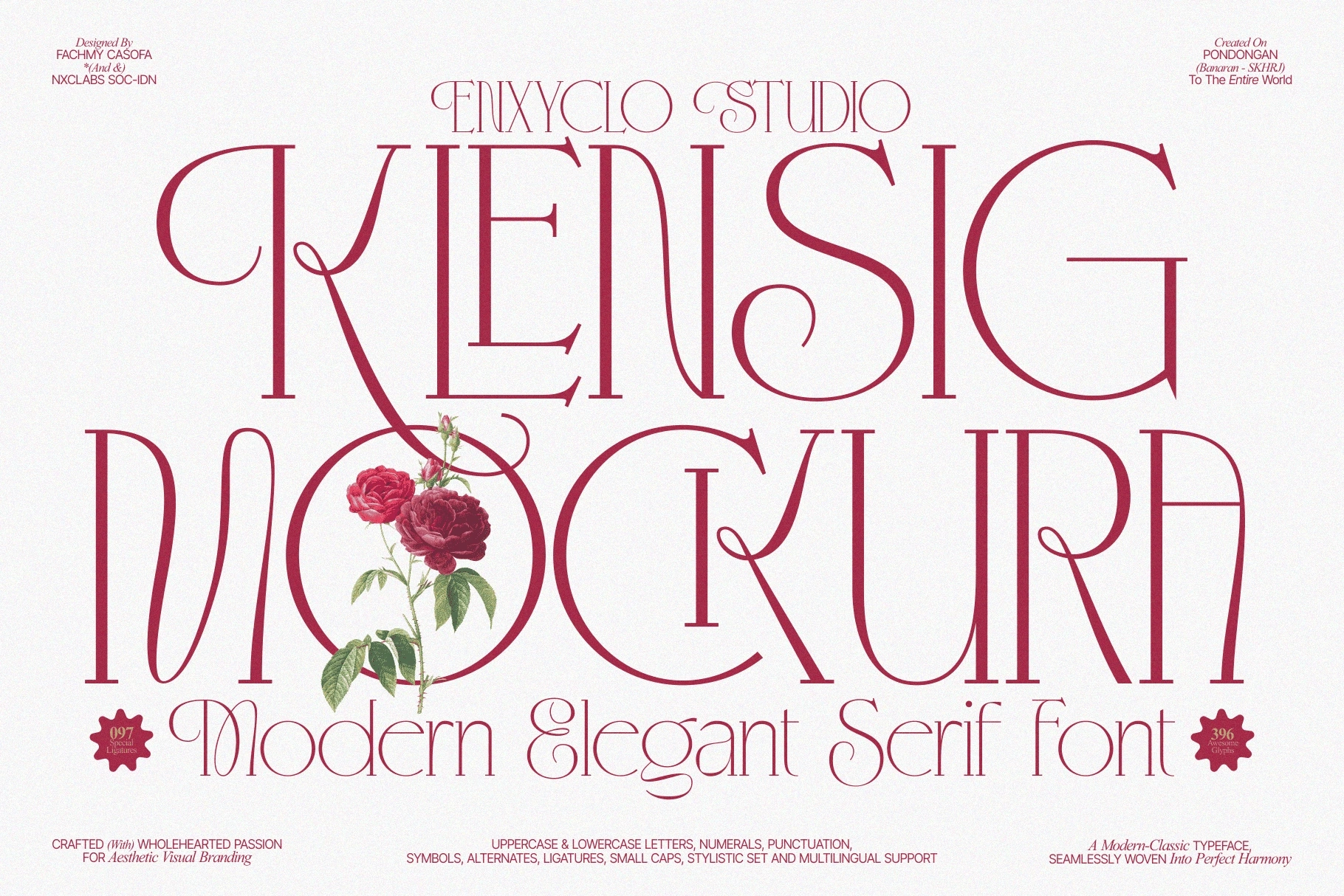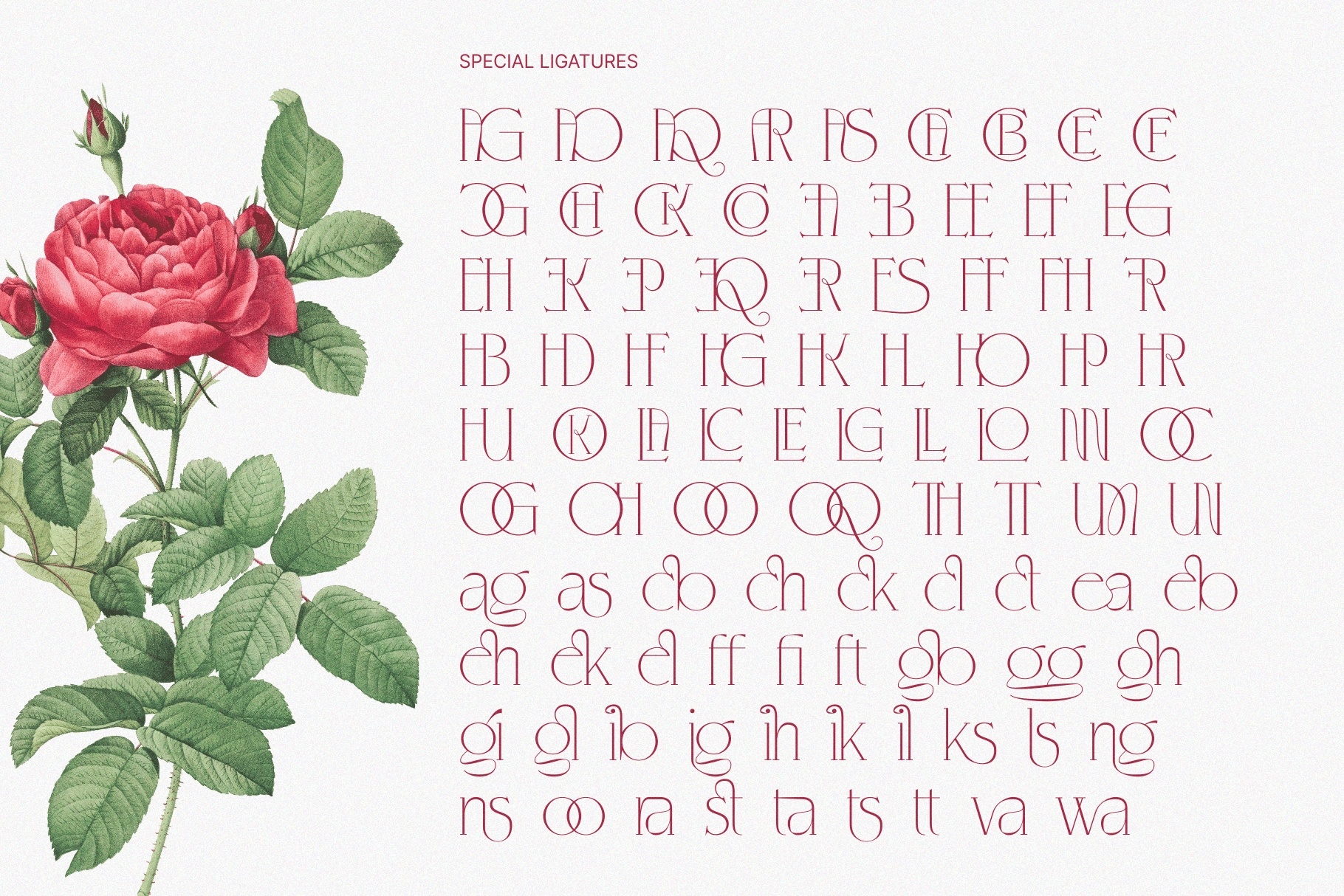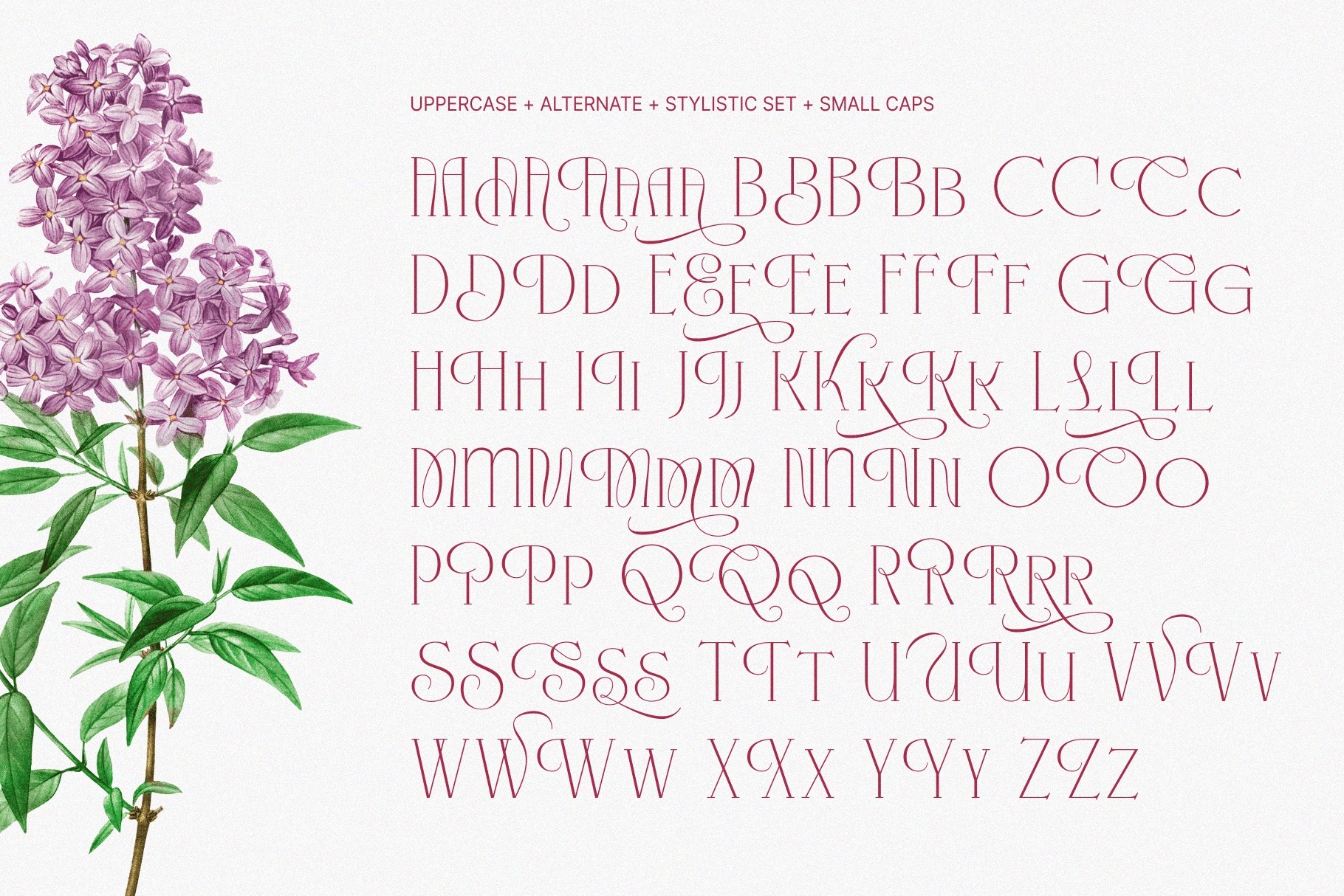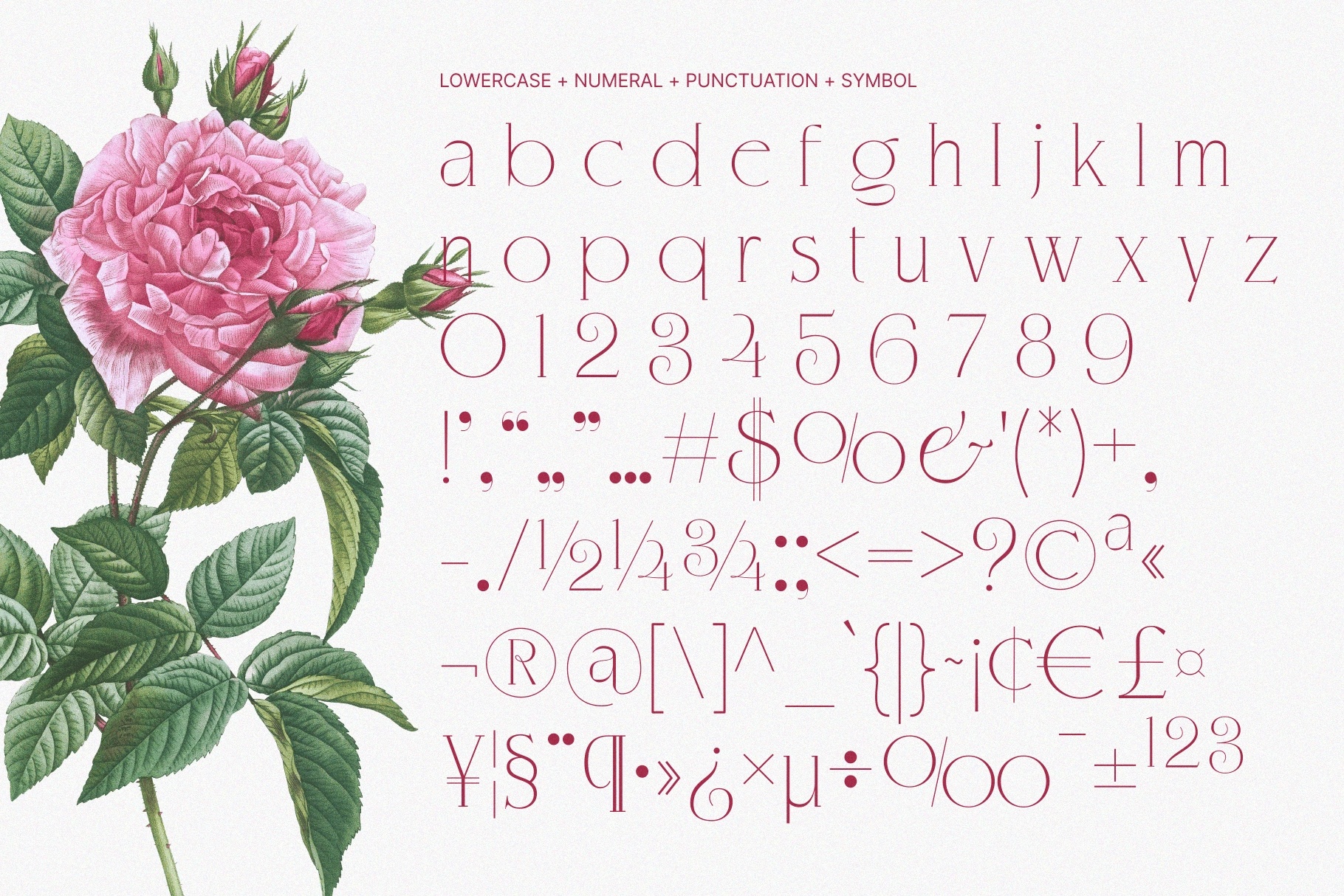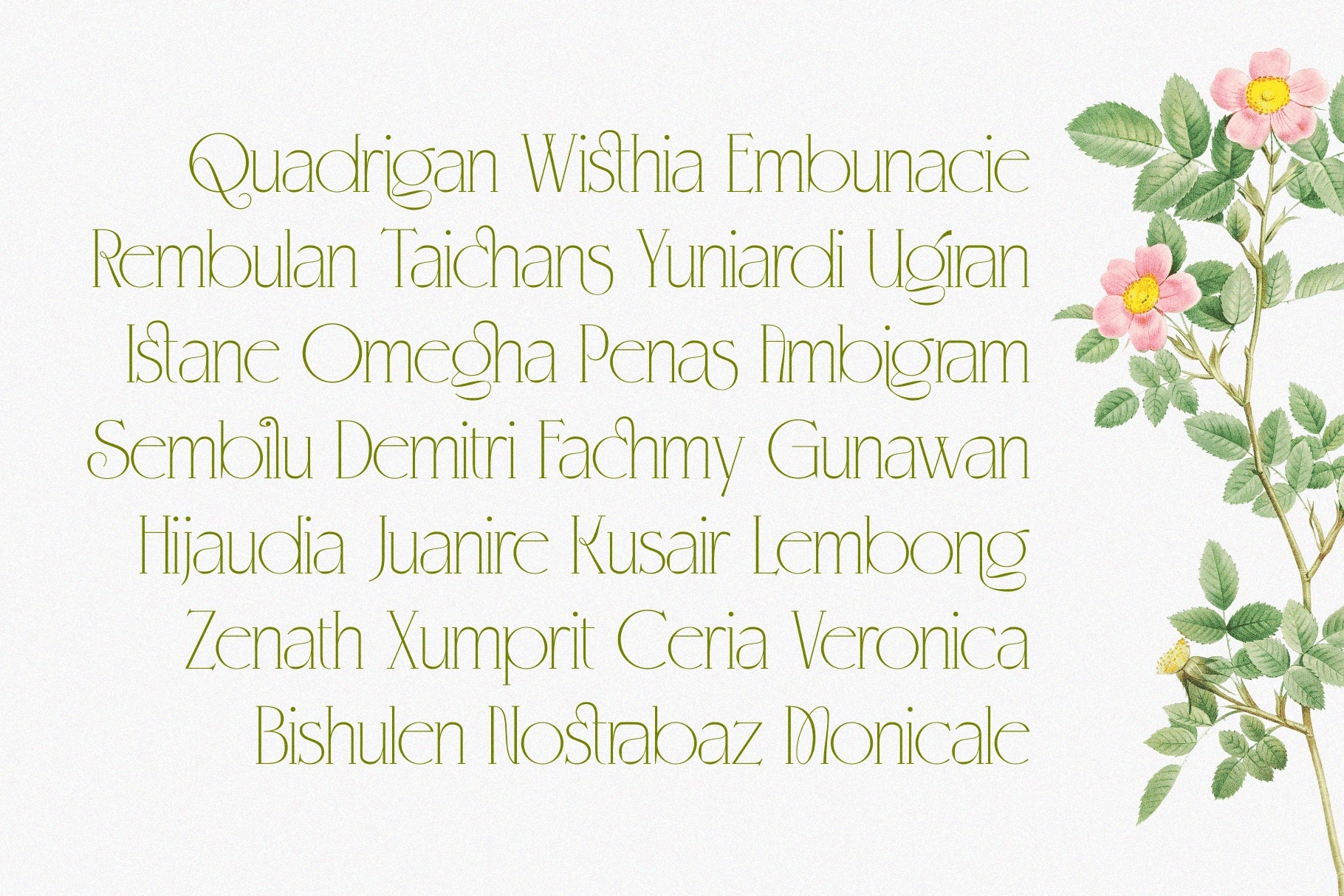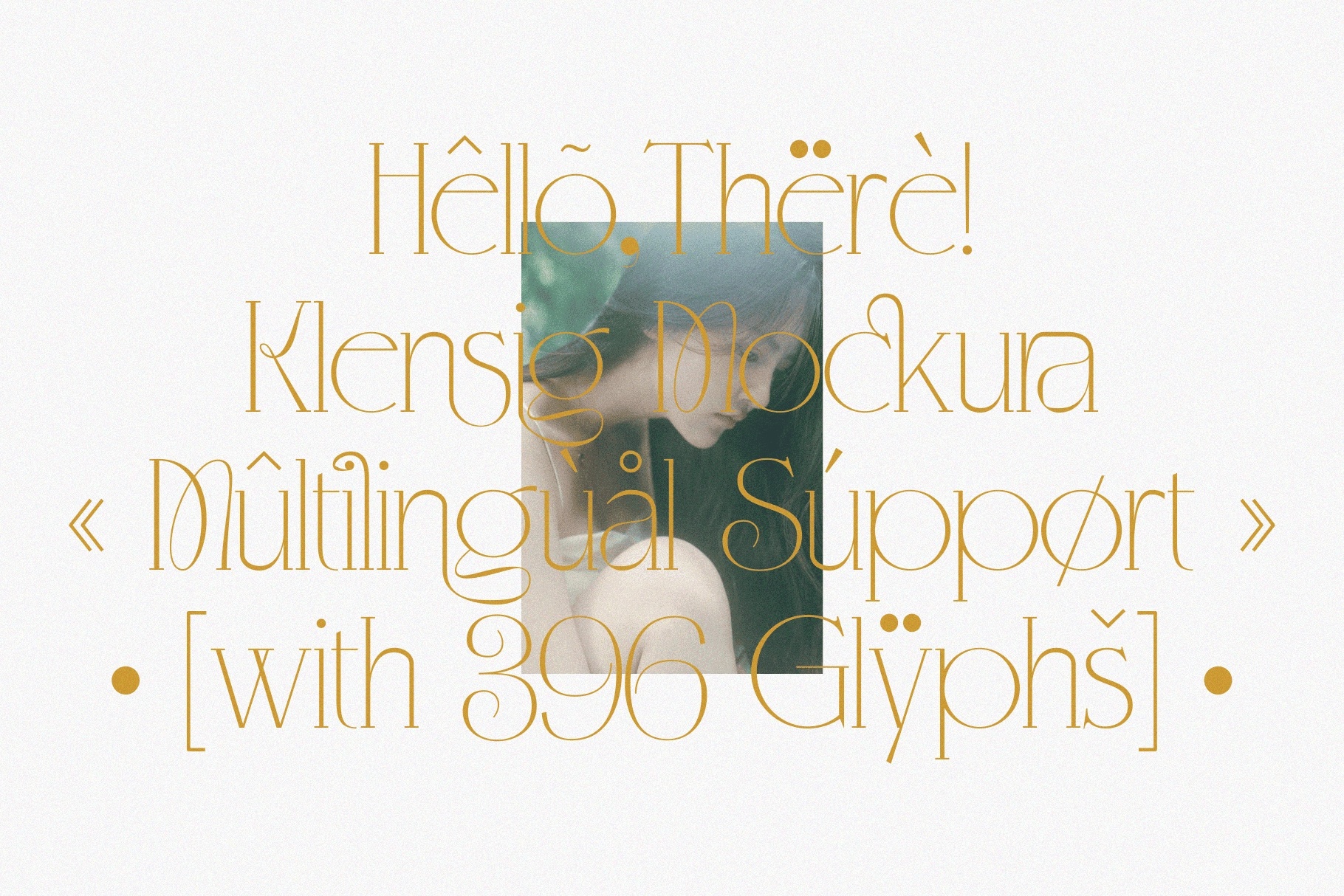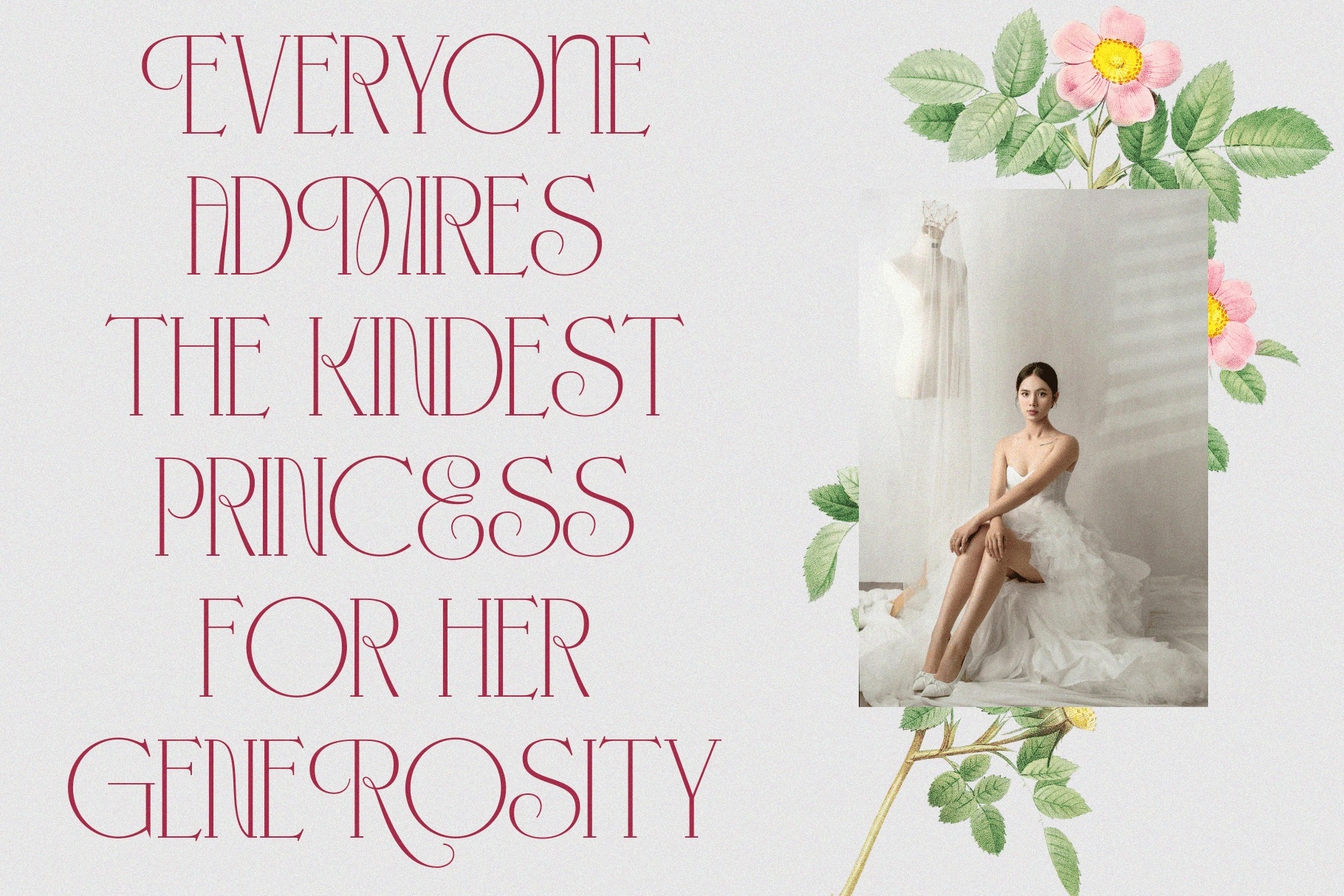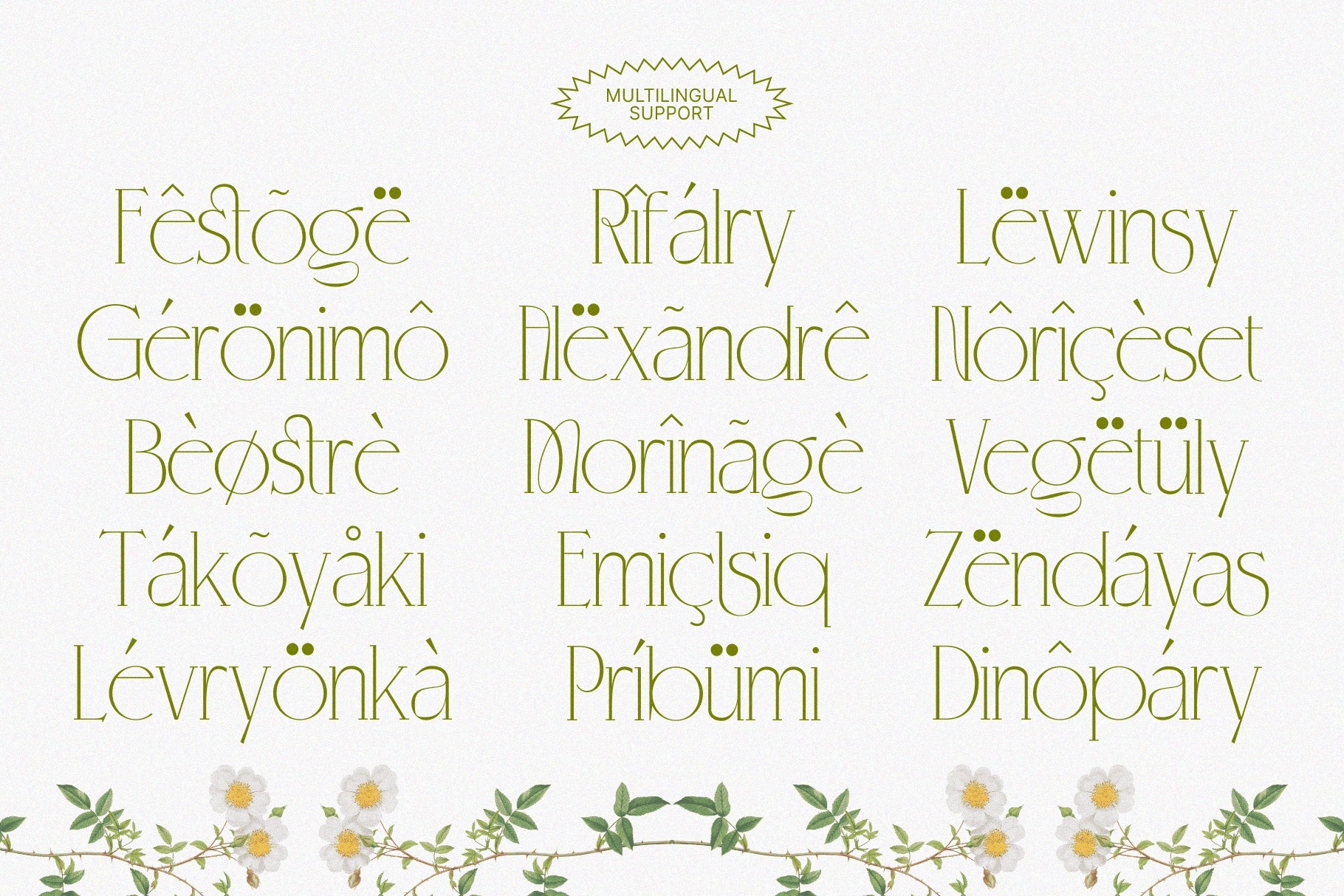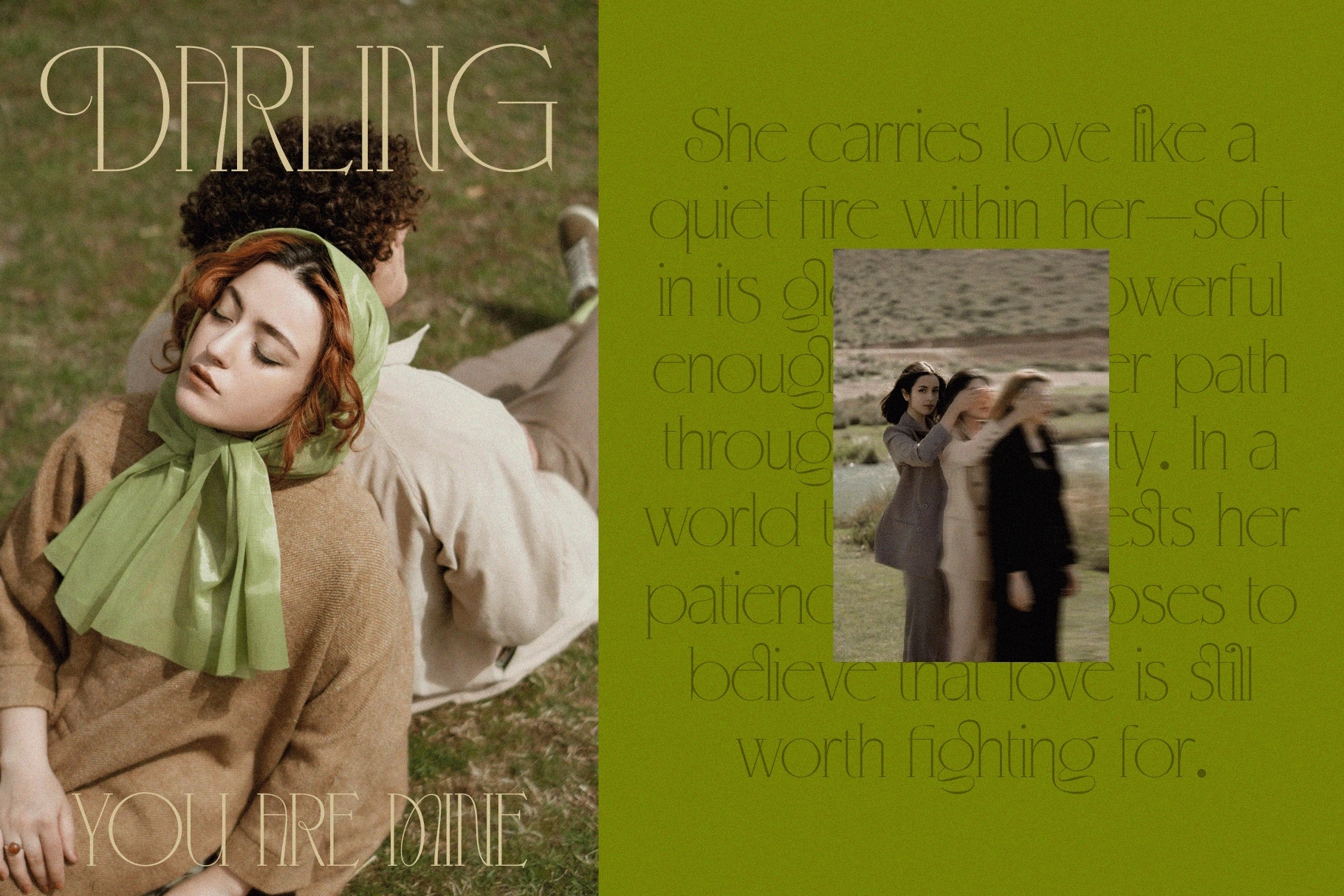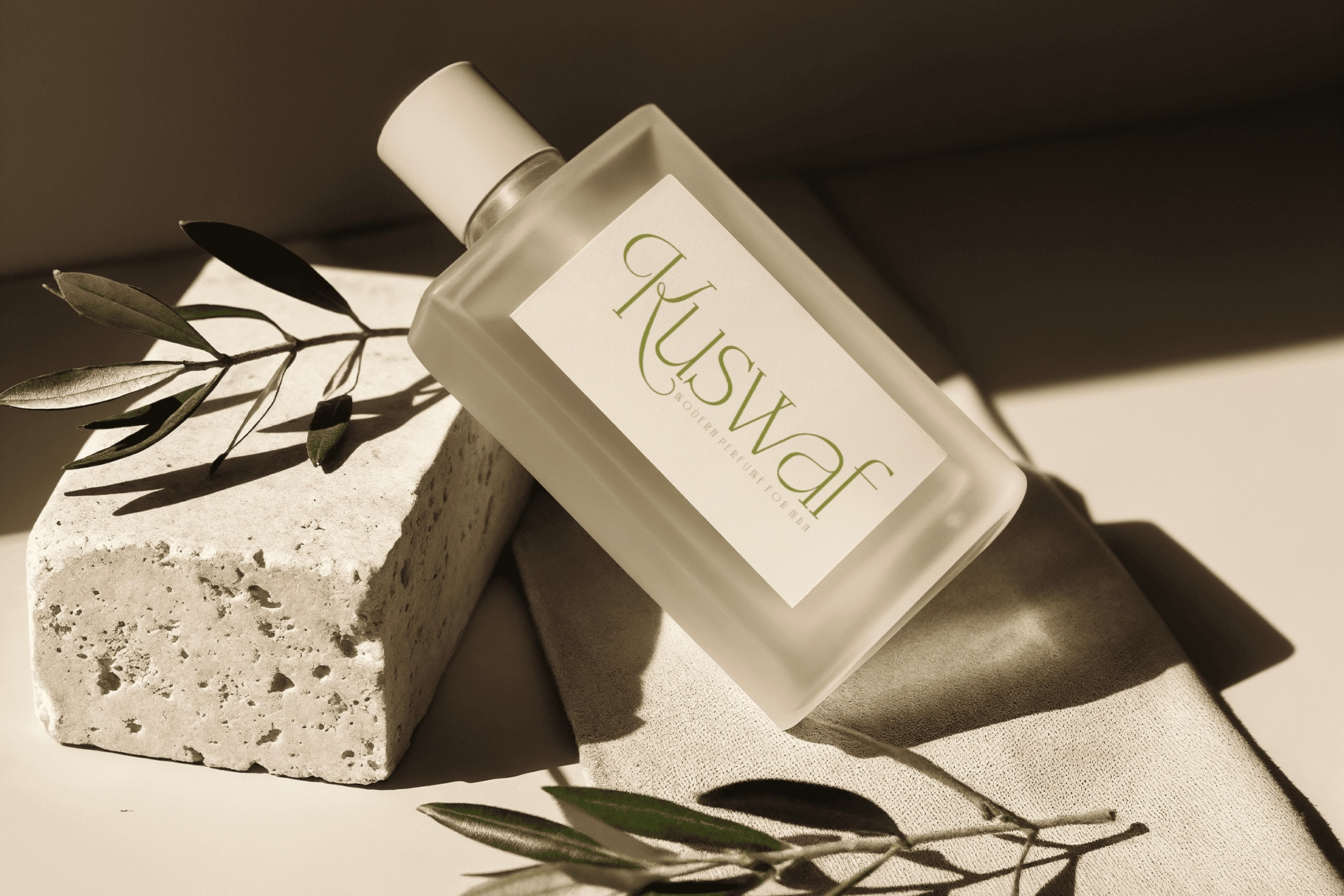
KLENSIG MOCKURA — Elegant Luxury Serif Font
Fine-lined, graceful, and quietly theatrical, this elegant serif typeface is made for branding that wants polish without shouting across the room. Its tall letterforms, soft curves, delicate contrast, and ornamental ligatures create a refined look with a romantic editorial edge.
Klensig Mockura is a strong fit for luxury logos, fashion identities, beauty packaging, skincare labels, boutique signage, perfume branding, magazine titles, wedding stationery, product labels, social media graphics, campaign visuals, art direction, and more. The alternate characters, small caps, stylistic sets, and ligatures give designers plenty of room for custom wordmarks and high-end typographic layouts.
• Currencies
• Alternate Characters
• Small Caps
• Stylistic Set
• Ligatures